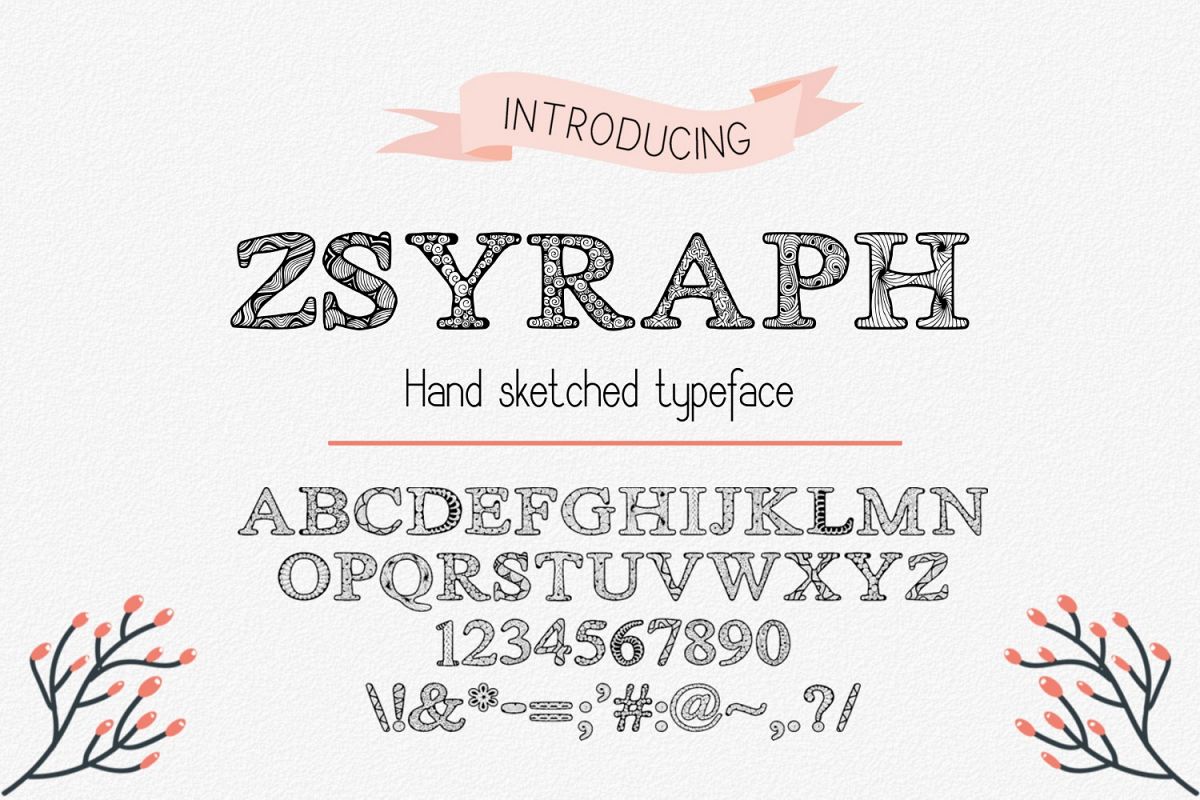
Zsyraph Font
Introducing Zsyraph hand drawn fancy decorative font.
Zsyraph is perfect for branding projects, homeware designs, product packaging, stationeries and scrapbooking - or simply as a text overlay to any background image.